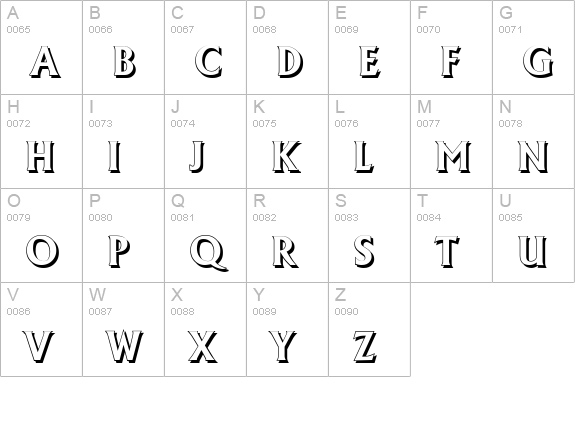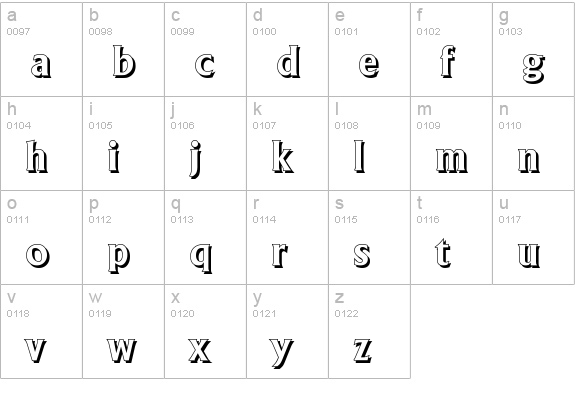
AdelonShadow-Bold is a strong, high-contrast variant in the AdelonShadow typeface family \xE2\x80\x94 well suited to headlines, attention-grabbing titles, and strong calls-to-action.
AdelonShadow-Bold font is a striking and bold typeface that exudes elegance and sophistication. Its sharp edges and shadow effects make it perfect for creating eye-catching headlines and titles that demand attention. This font is ideal for projects that require a touch of modernity and flair. What sets AdelonShadow-Bold font apart is that it is available for free! You can easily download this font at FontsMarket.com, making it accessible to everyone looking to add a touch of drama to their designs. Whether you're working on posters, banners, or branding materials, AdelonShadow-Bold font will elevate your project with its unique style and versatility. Don't miss out on this free font and enhance your designs today!